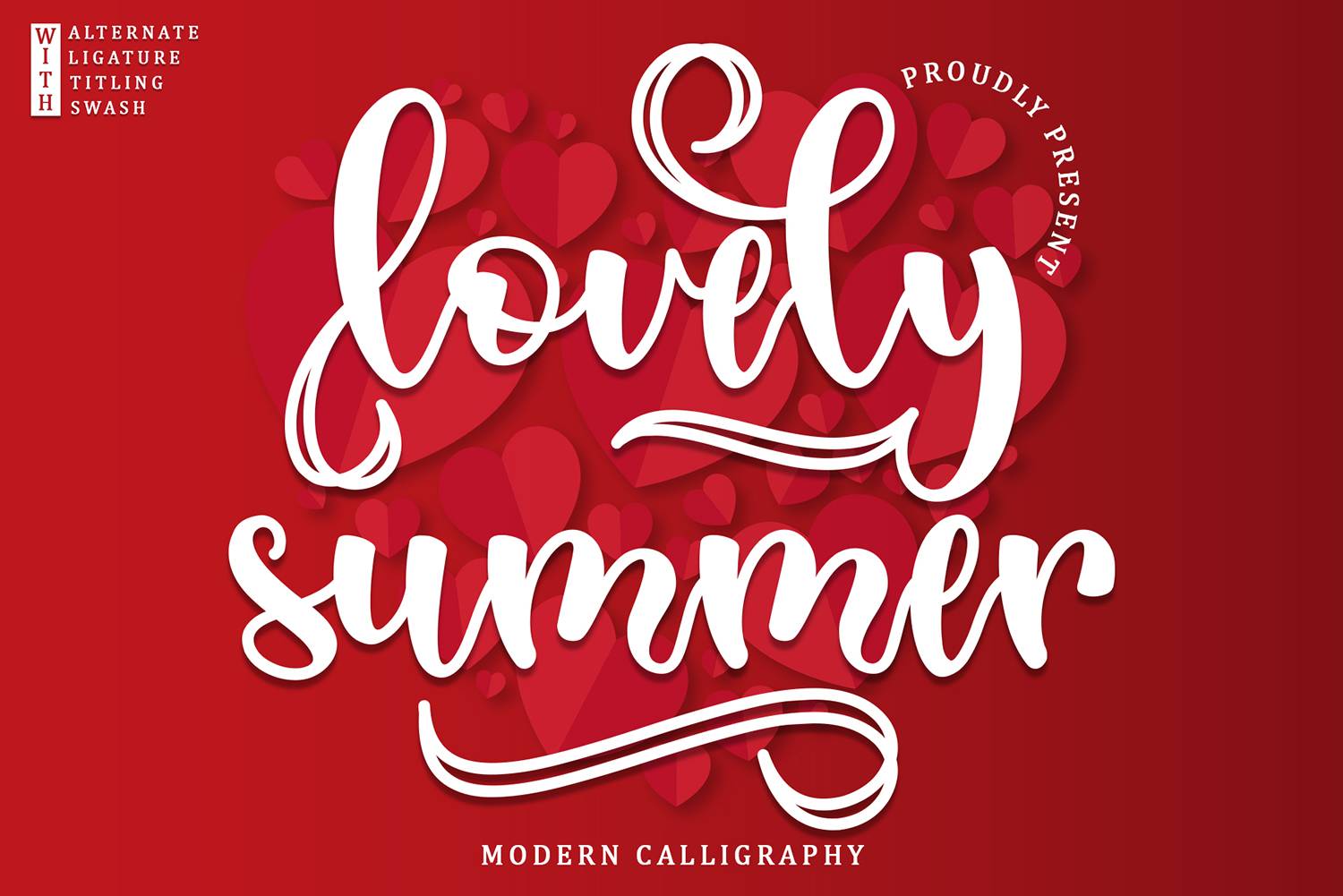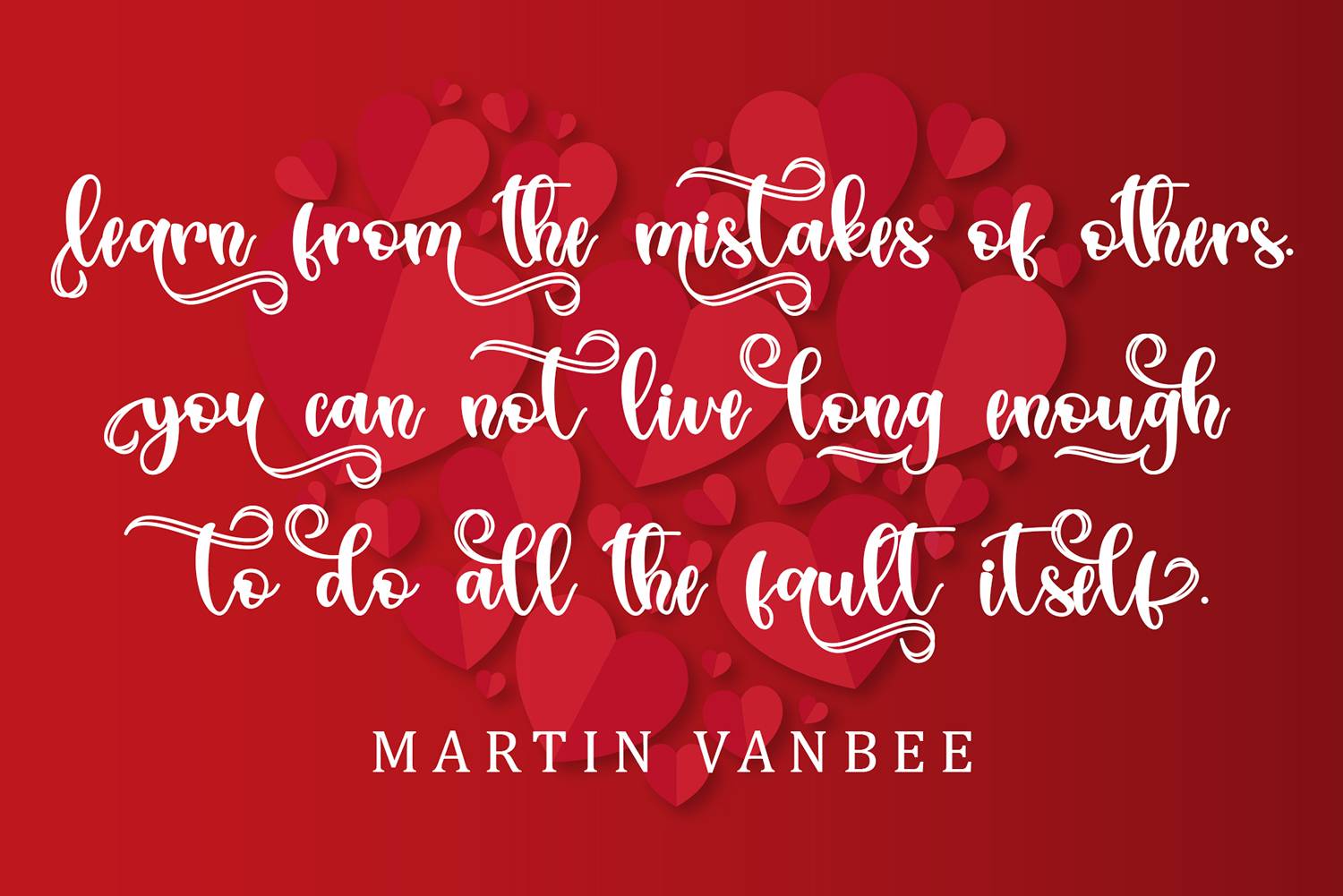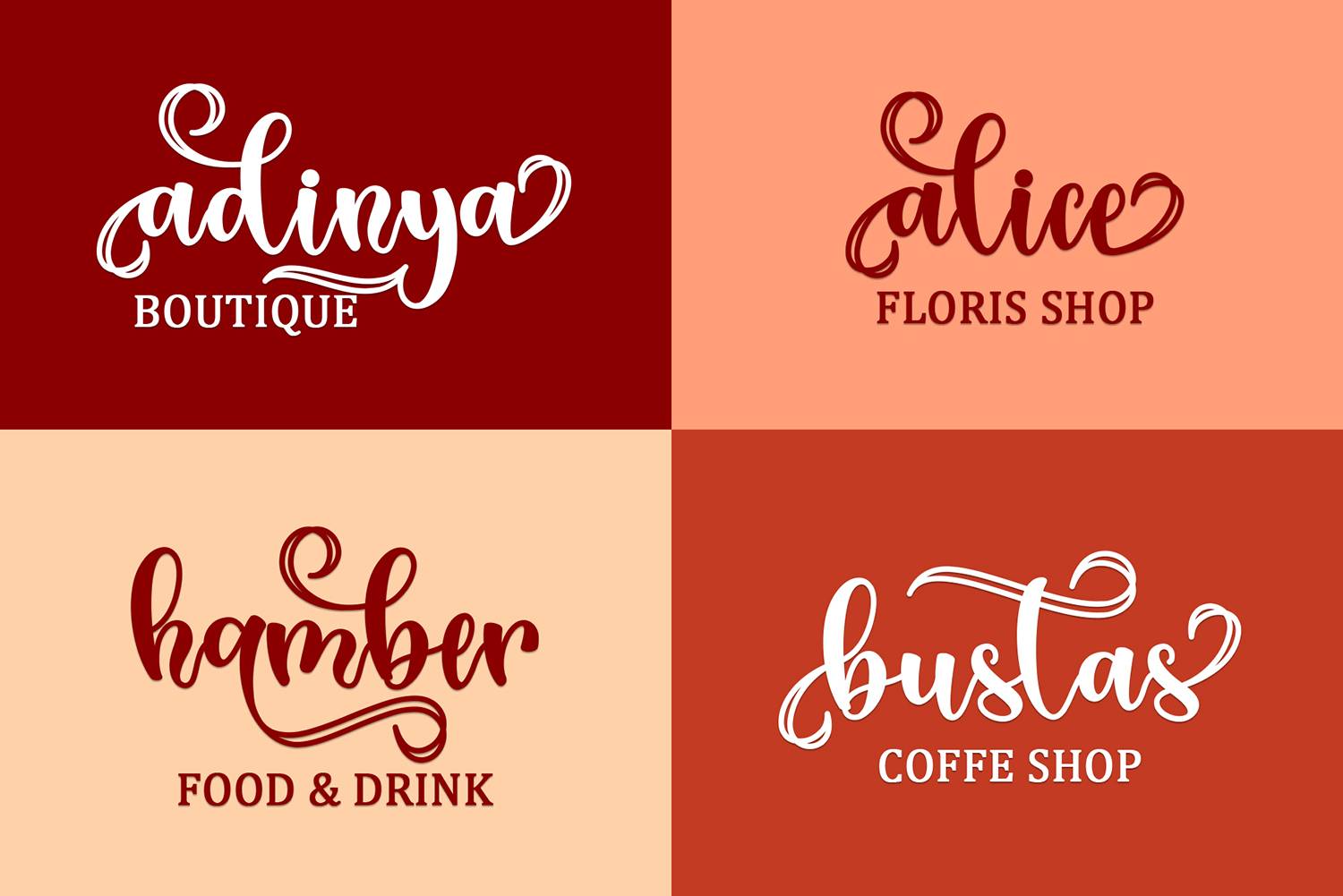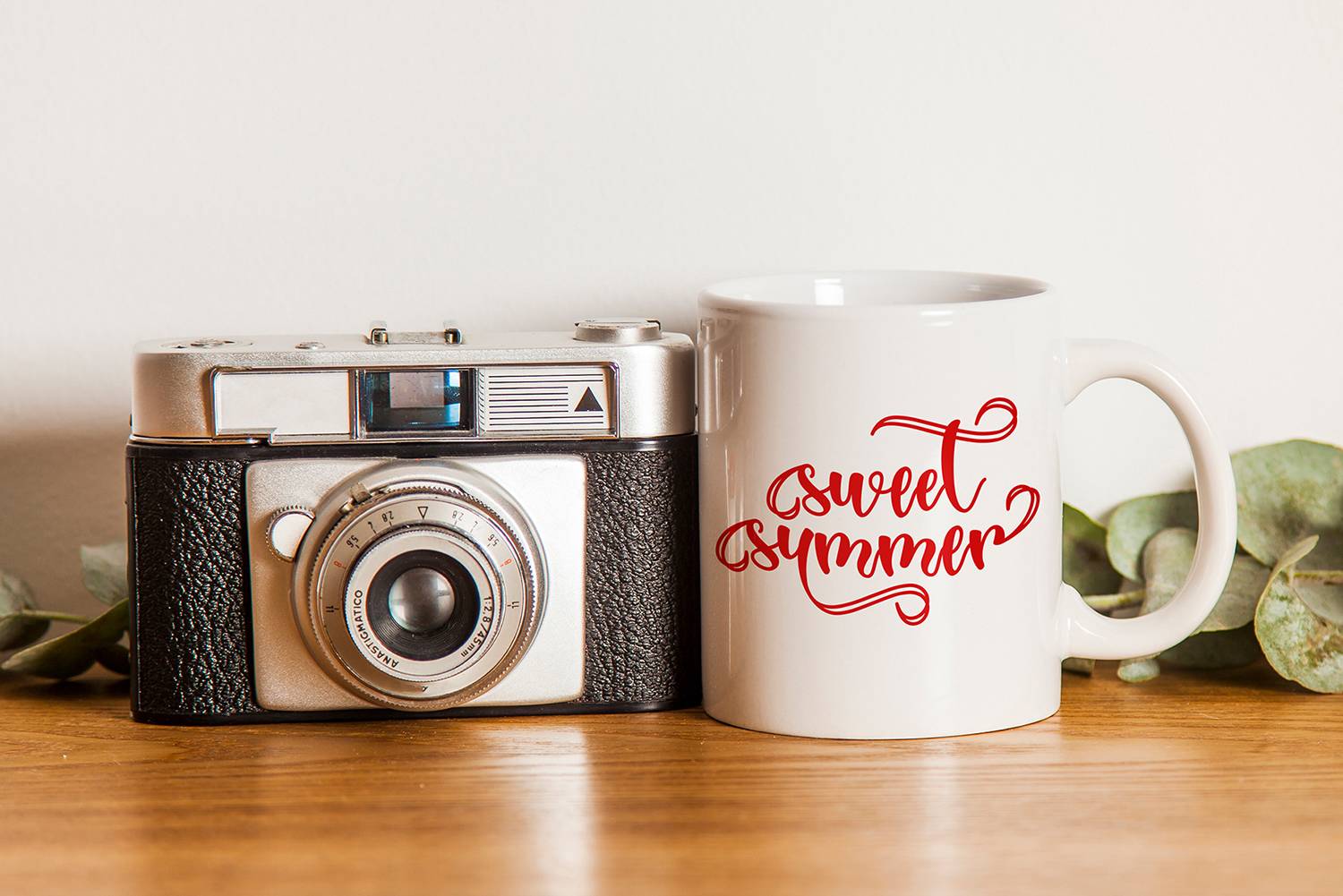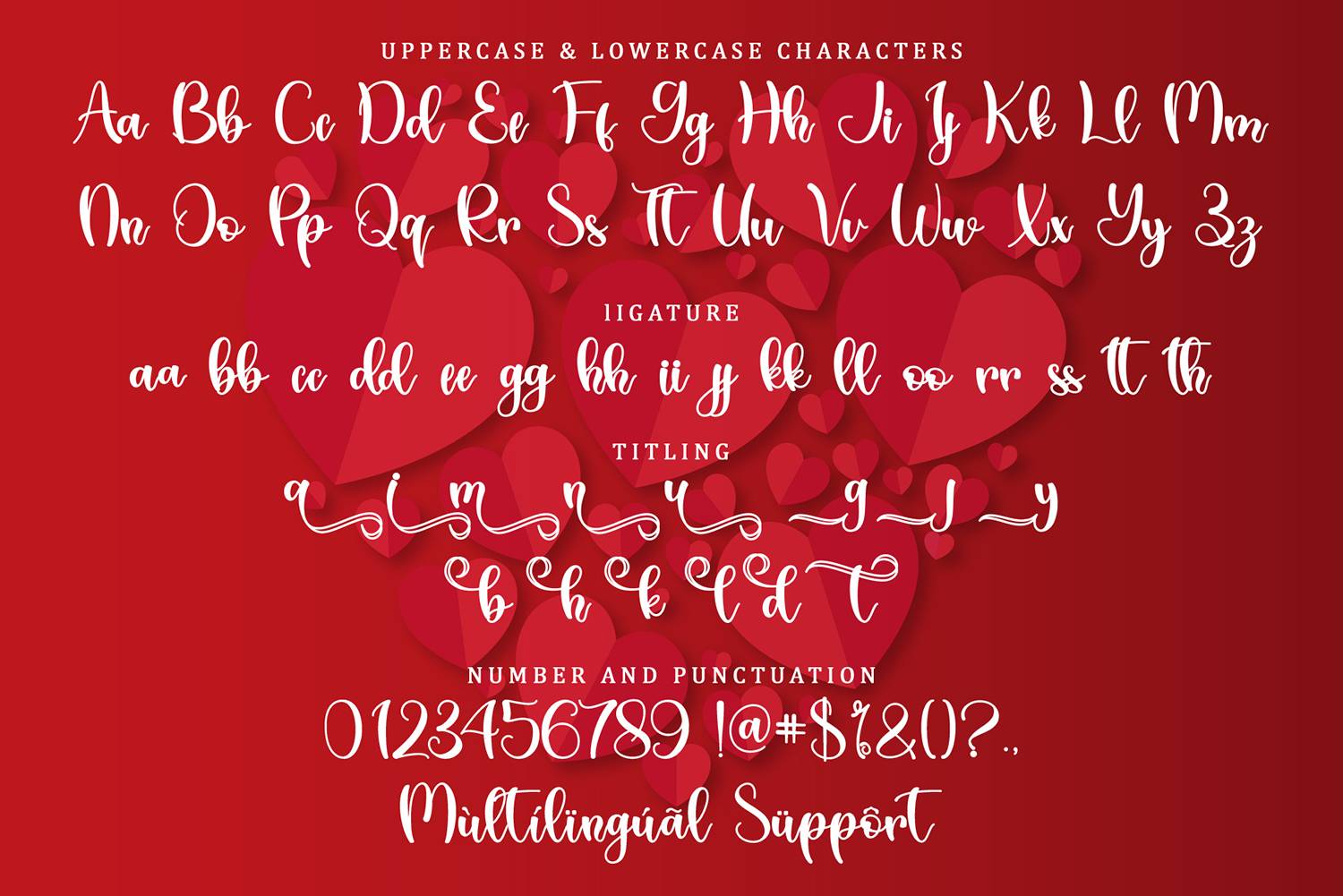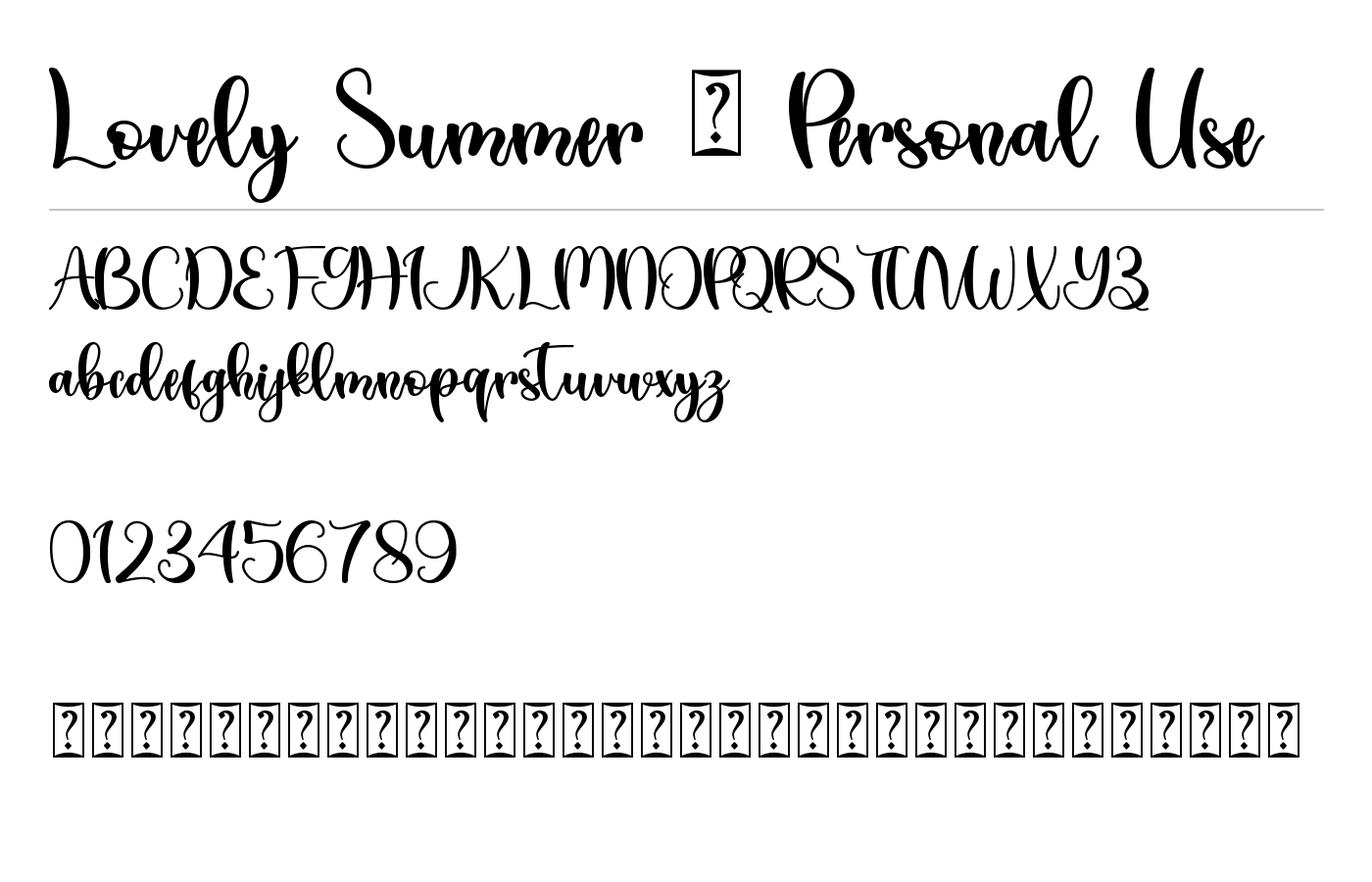
Lovely Summer is a playful, handwritten script font with elegant, flowing strokes and a casual, warm feel. It features a smooth, medium weight with lively letterforms that include distinctive loops and curls, making it ideal for personal projects, invitations, or branding that wants to evoke a friendly, creative vibe. This font works well in headlines or decorative text where a charming and approachable style is desired.
Lovely Summer Font
About Lovely Summer Font